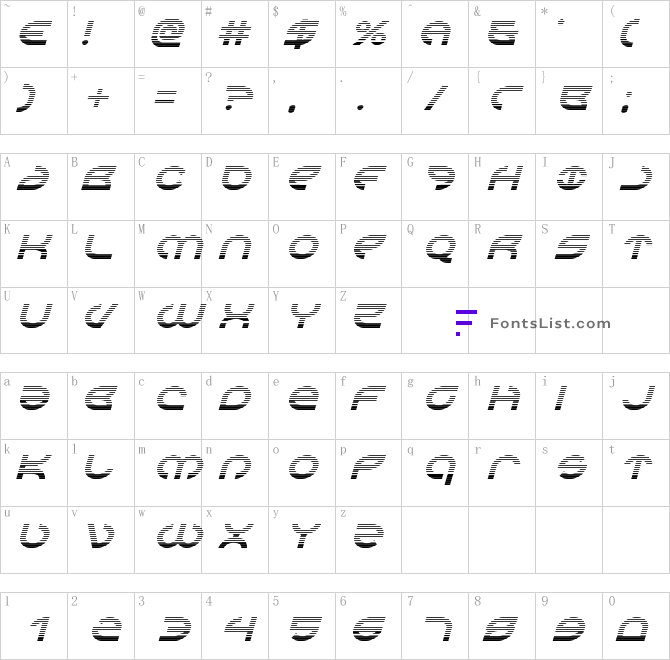
- Font Name:Aetherfox Gradient Italic
Aetherfox-Gradient-Italic.ttf is a very beautiful artistic font, Aetherfox-Gradient-Italic.ttf is widely used in the design and printing of various books and pictures,Aetherfox-Gradient-Italic.ttf has a strong visual impact,Aetherfox-Gradient-Italic.ttf is a commonly used font in newspapers, magazines and books, and is used in posters, e-commerce Poster design, store design, logo design, font design and other fields.Aetherfox-Gradient-Italic.